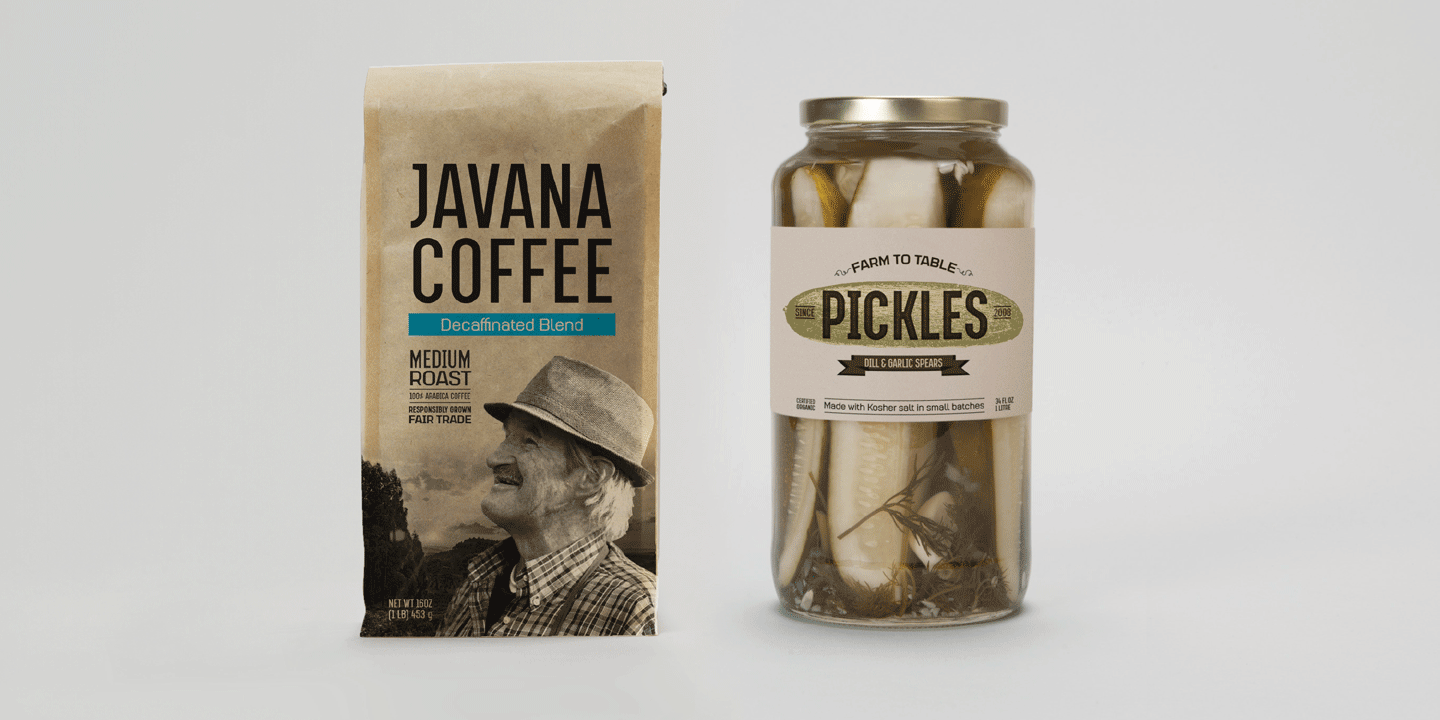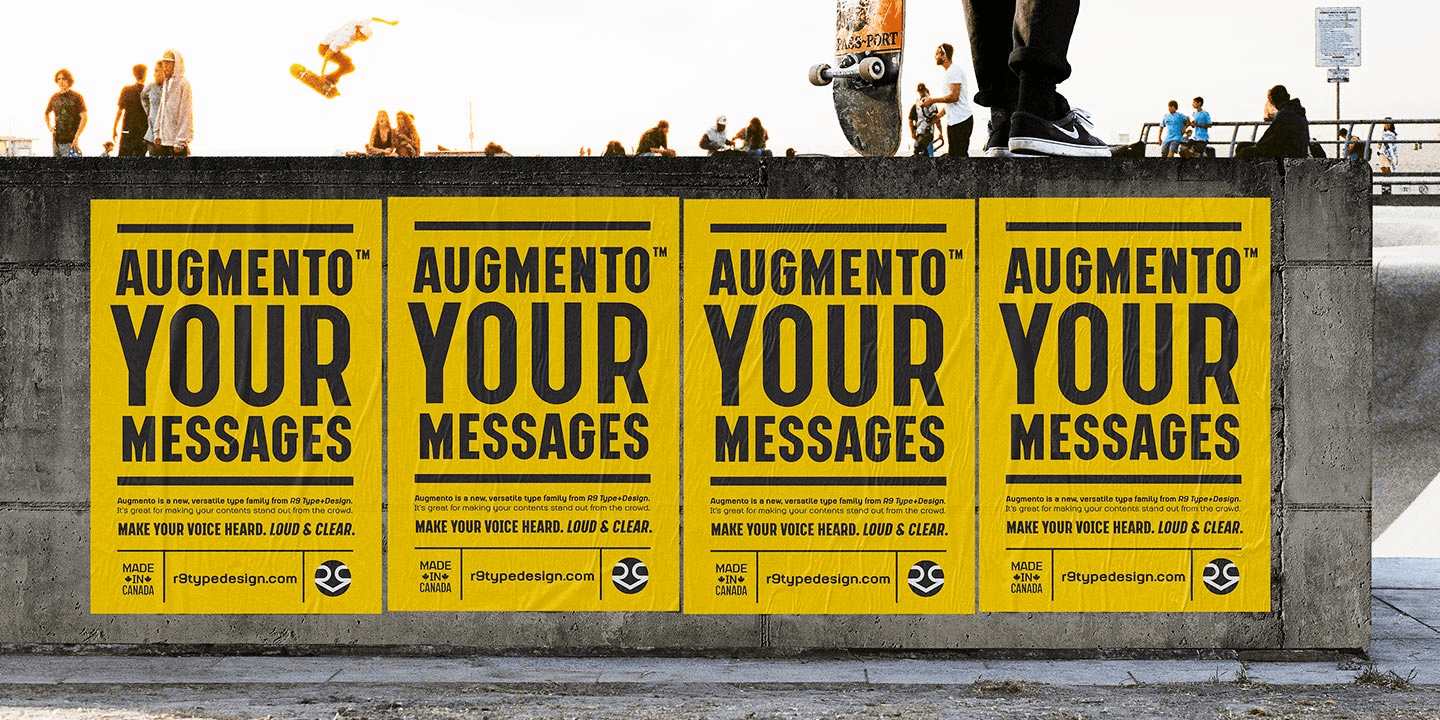
Augmento?. Make your voice heard. Loud and Clear. Augmento? is a large contemporary font family from R9 Type+Design. We designed this typeface right smack on the sweet spot between formal and casual. The rounded rectangular structure gives Augmento the…